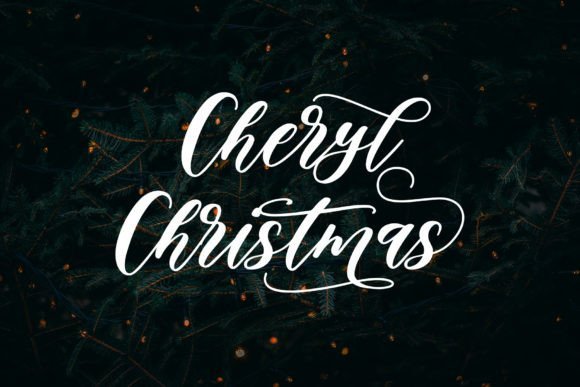
Introduction to Cheryl Christmas Font
Cheryl Christmas is a delicate handwritten font masterfully crafted to become a true favorite.
Contemporary and fresh, it is perfect for any design you wish to create Add it to your creative projects and make them outstanding.
Key Features of Cheryl Christmas Font